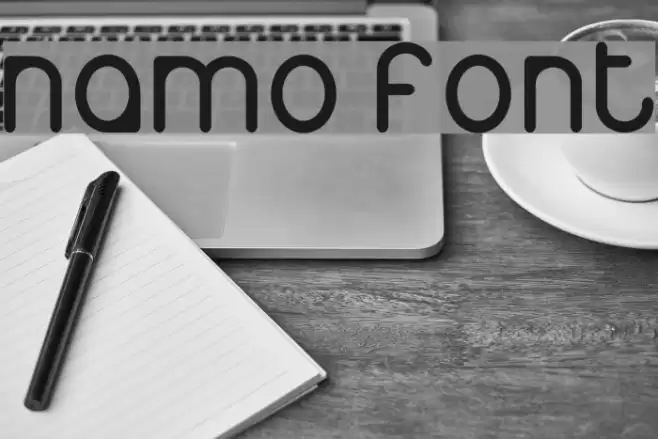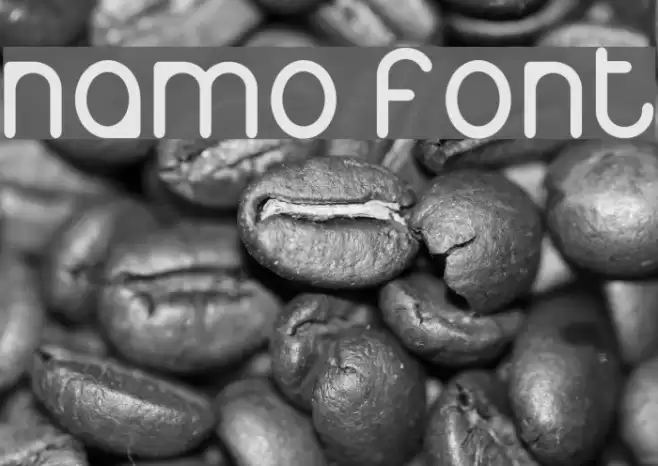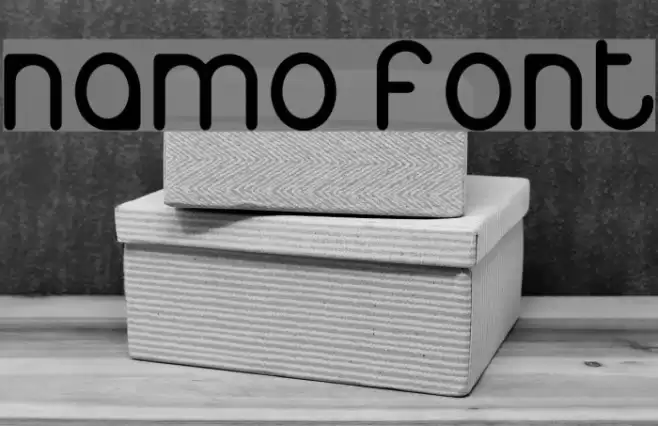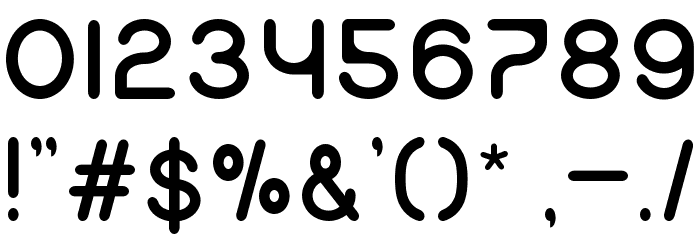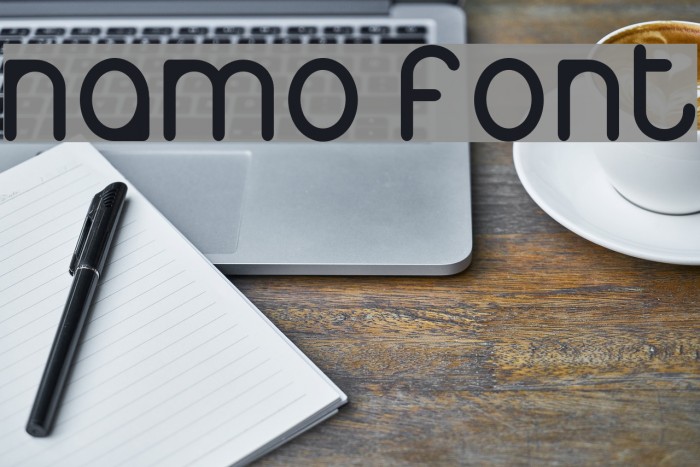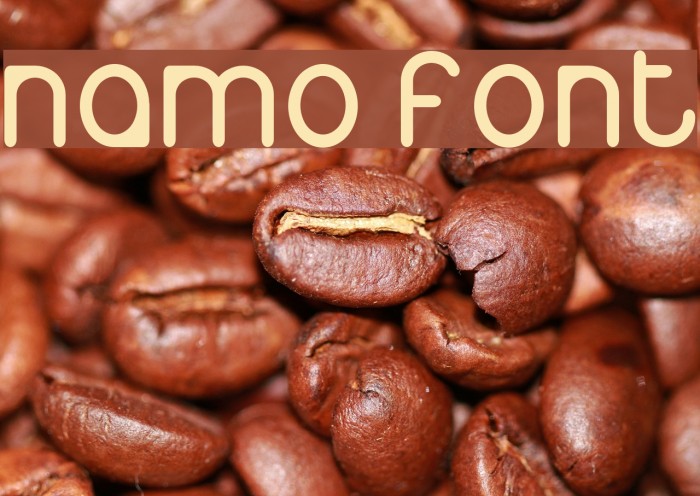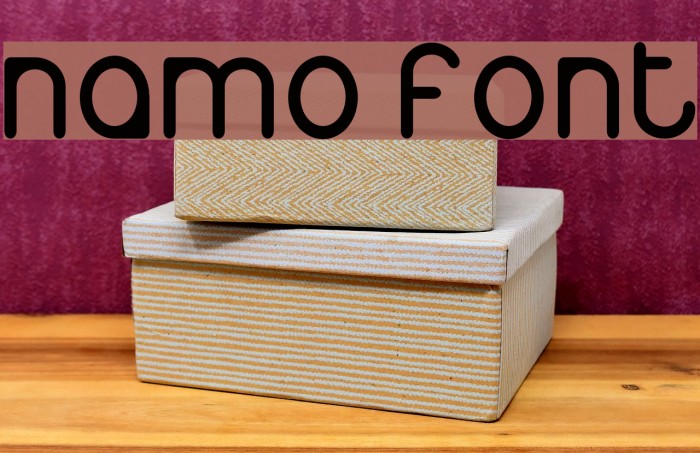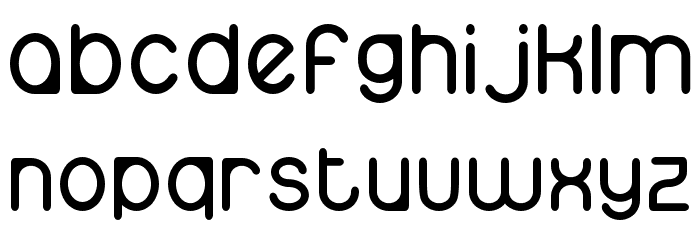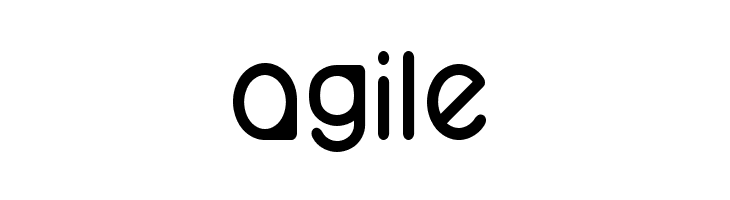
namo Font
namo Description
This font features a playful and rounded design, characterized by its smooth curves and uniform stroke width. The letters have a consistent, circular form that gives a friendly and approachable appearance. The lowercase letters are particularly rounded, with a uniform height that maintains readability. The numbers and special characters follow the same design principles, ensuring a cohesive look across all characters. This font's simplicity and clarity make it suitable for a variety of applications, from digital interfaces to print media. Its modern style is enhanced by the lack of serifs, contributing to a clean and contemporary aesthetic.
A playful, rounded font with smooth curves and uniform stroke width from Fancy fonts.
- Proposed Projects: Ideal for children's books, educational materials, playful branding, and digital interfaces.